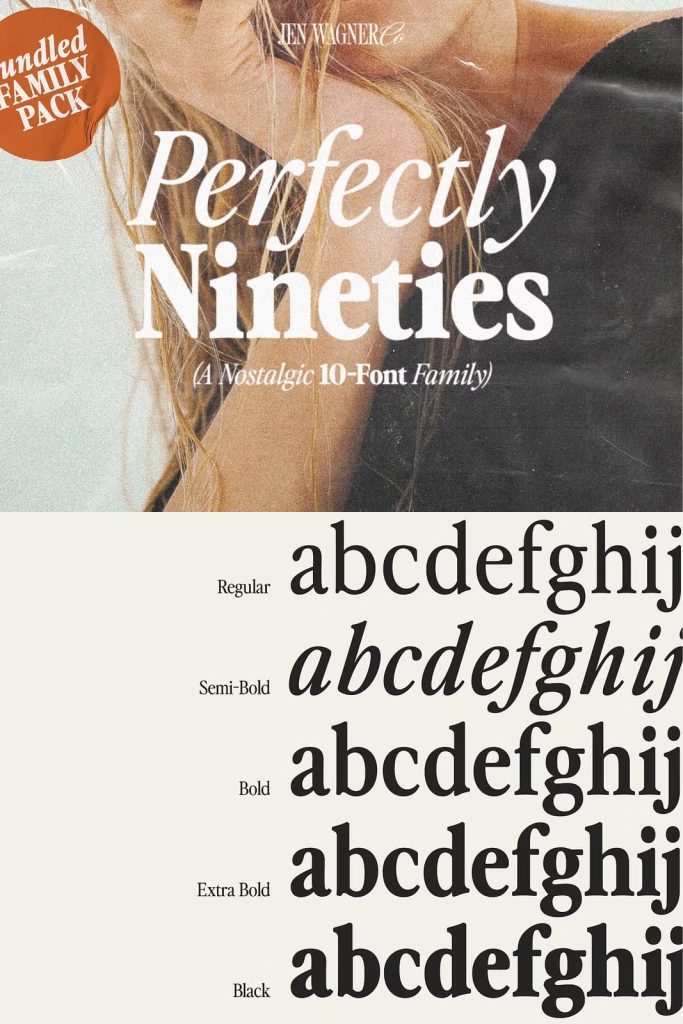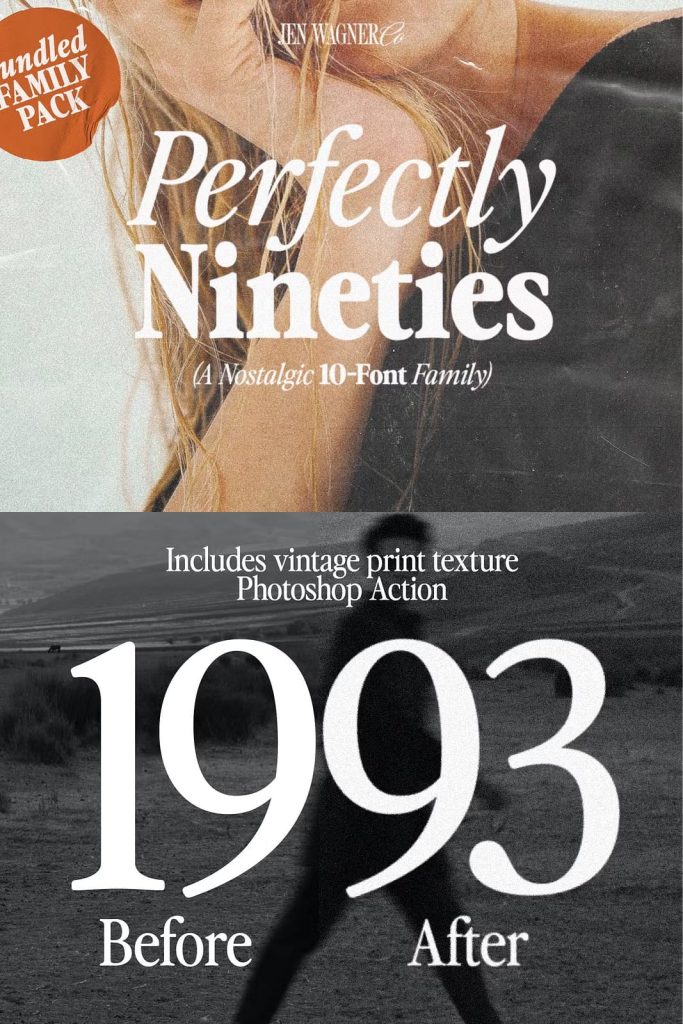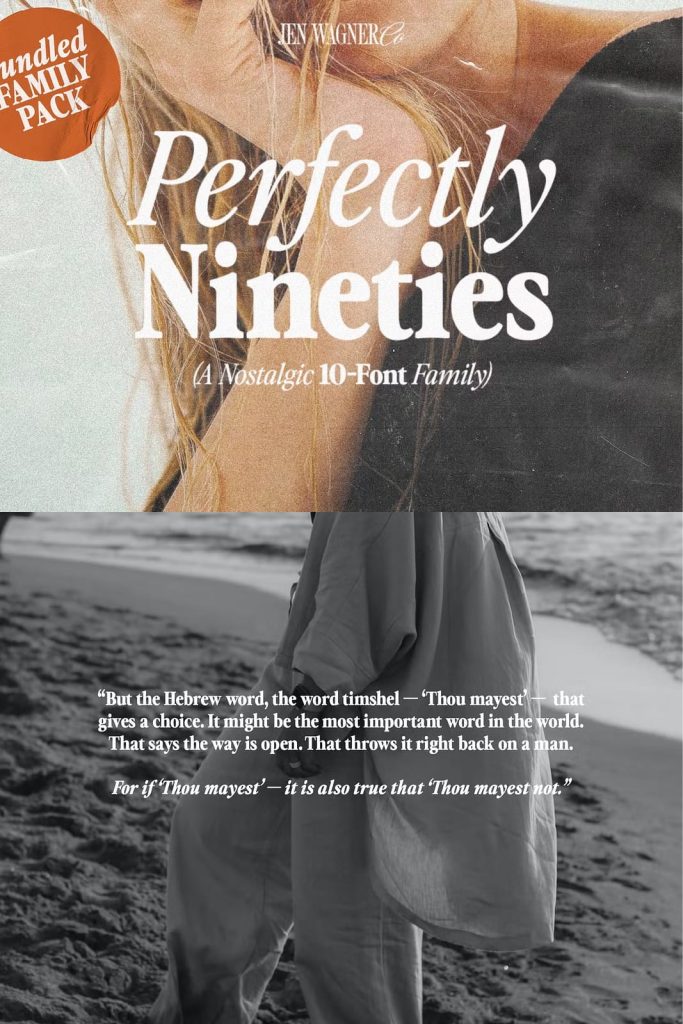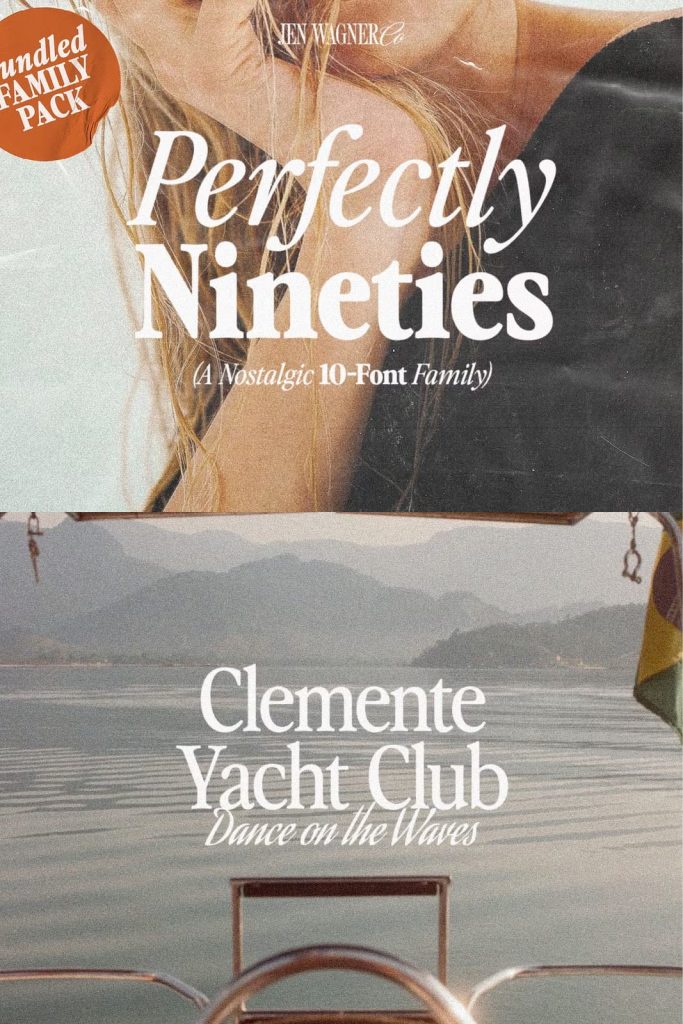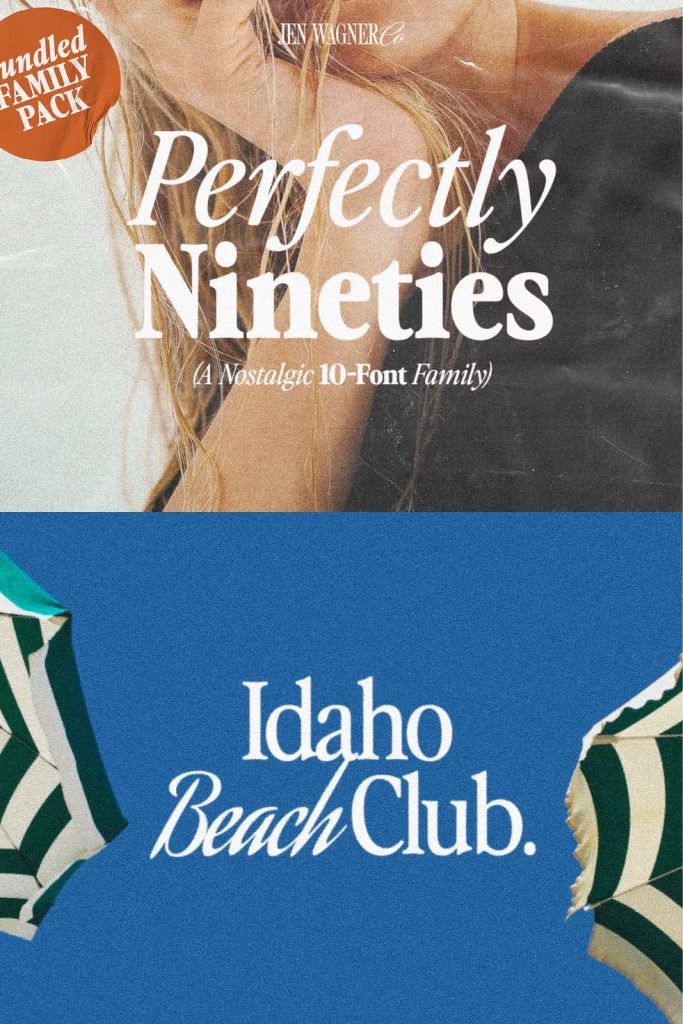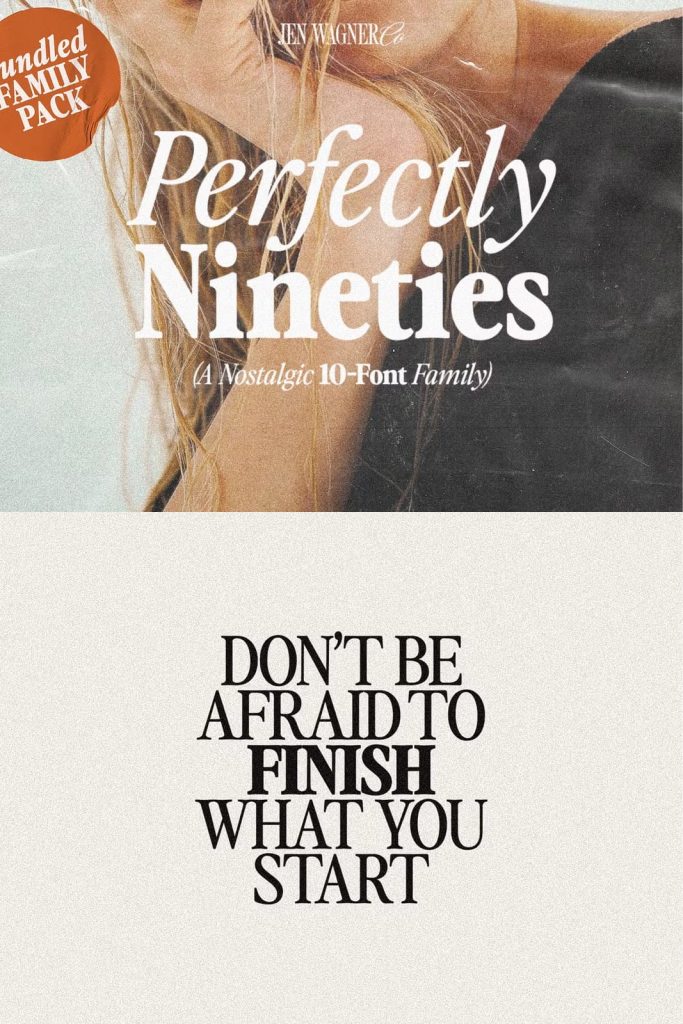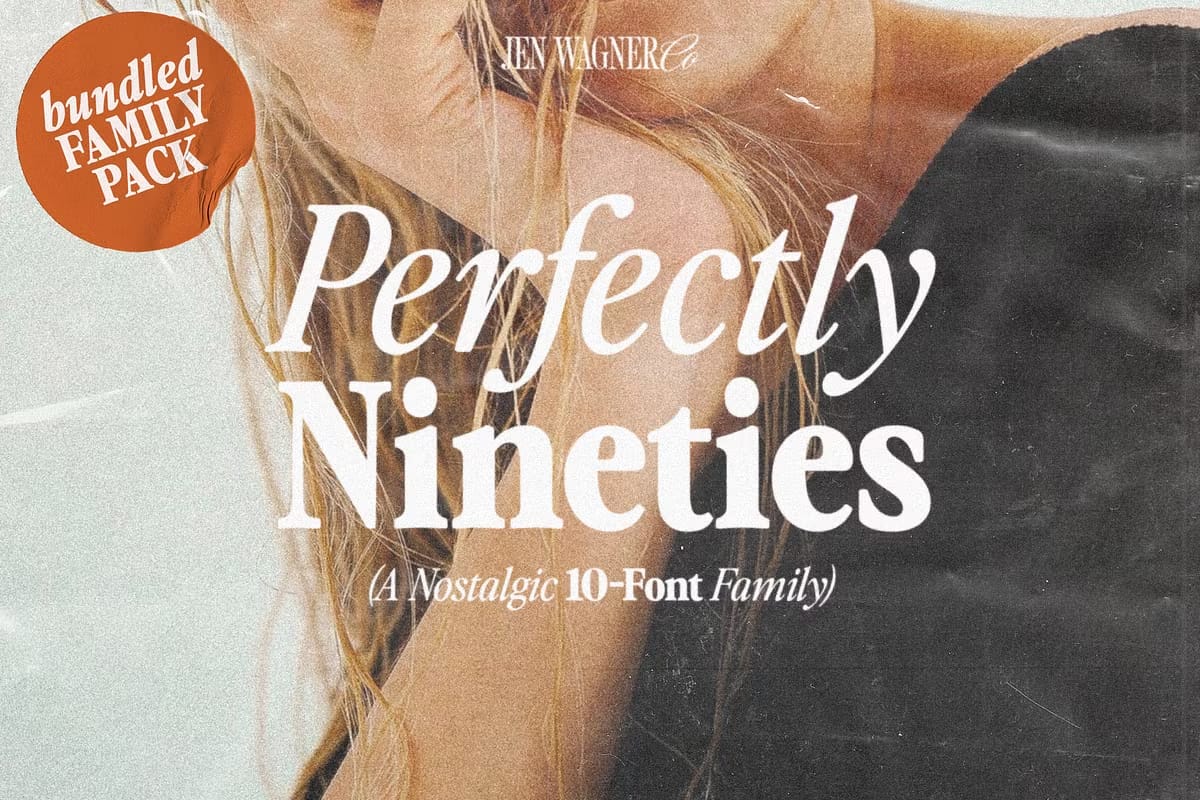
Perfectly Nineties 10-Font Family
Say hello to the Perfectly Nineties FAMILY – an expansion on Perfectly Nineties that includes 10 fonts, regular and italic, from Regular weight to Black, and still has all the nostalgic vibes